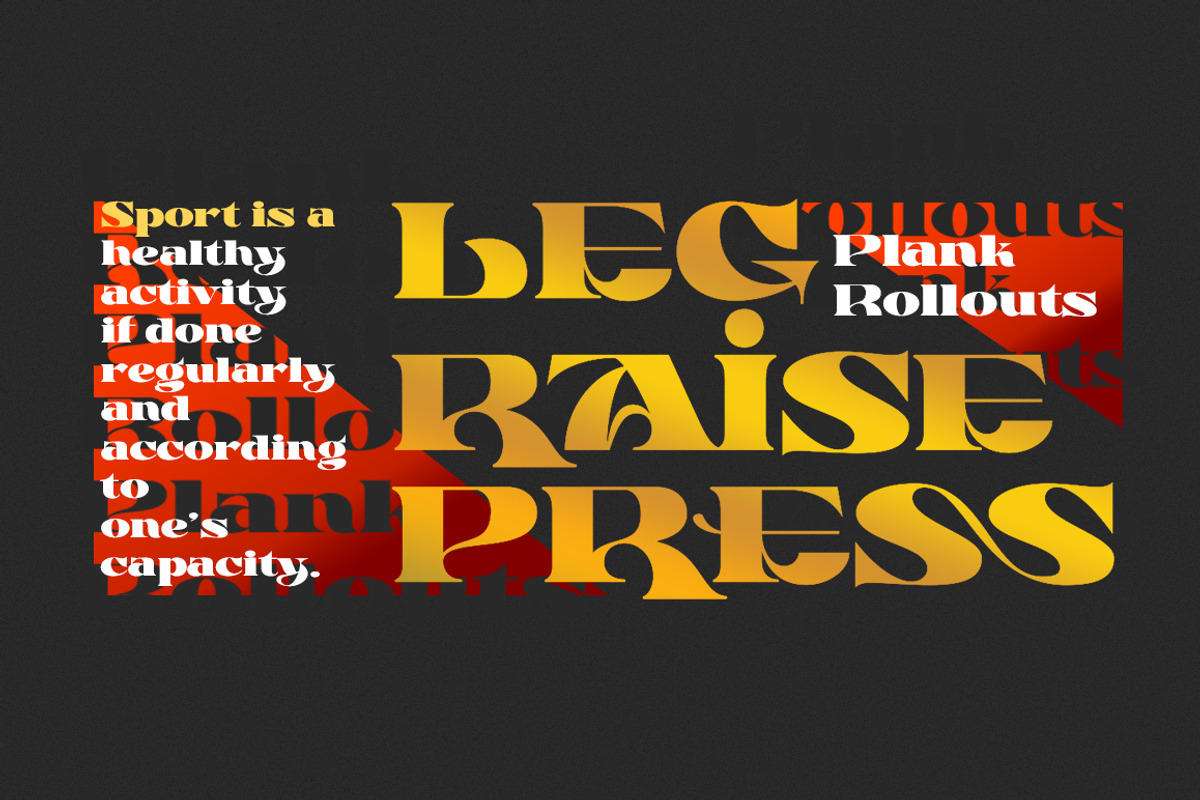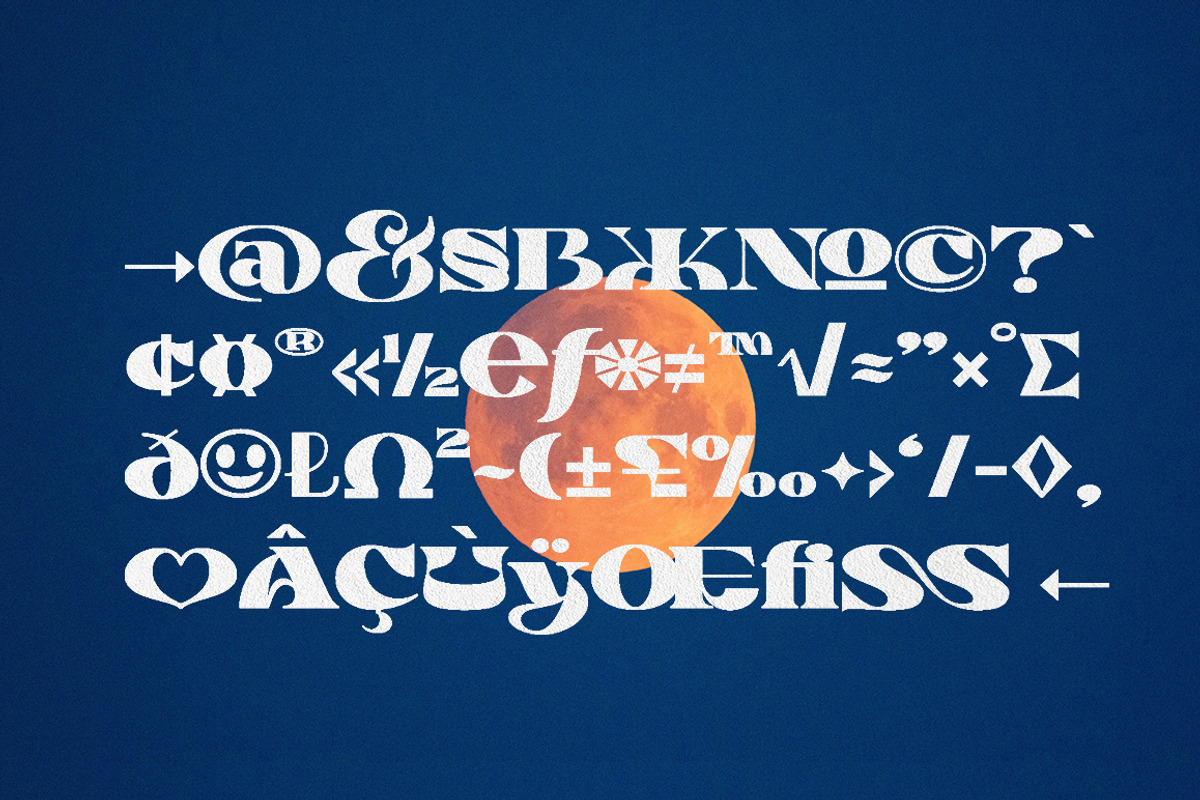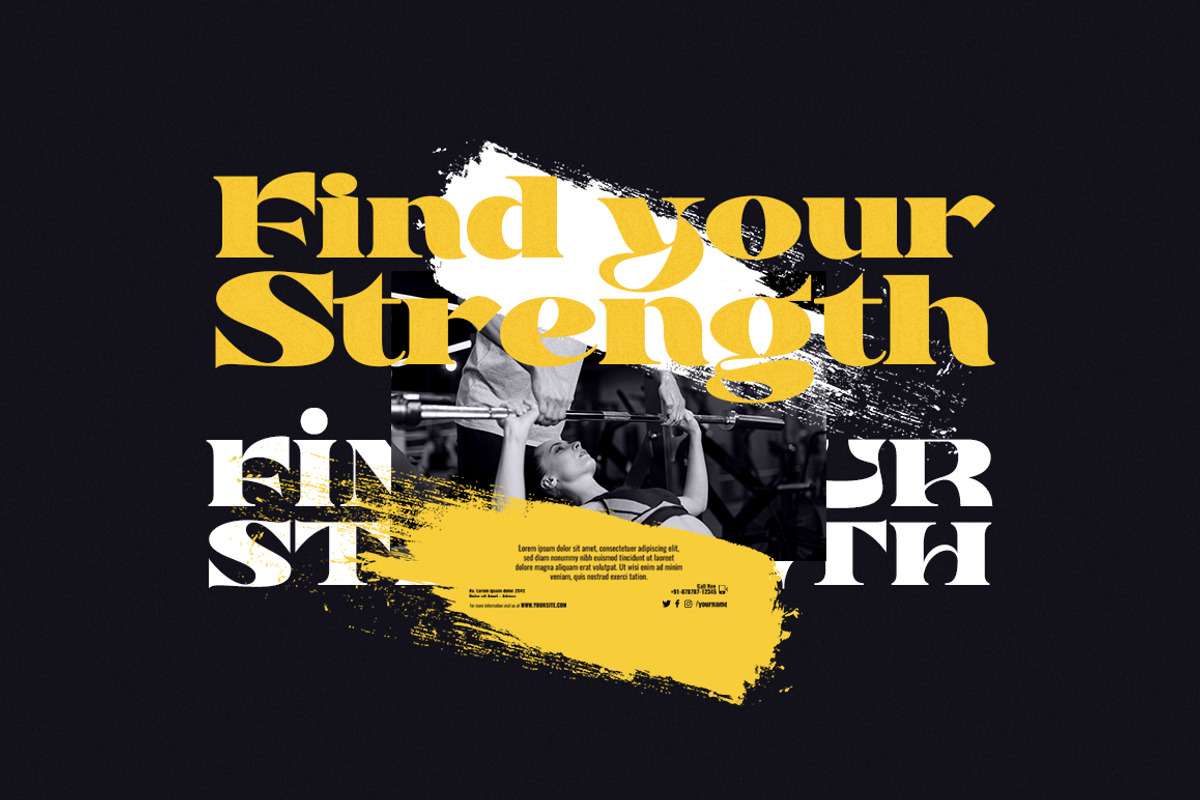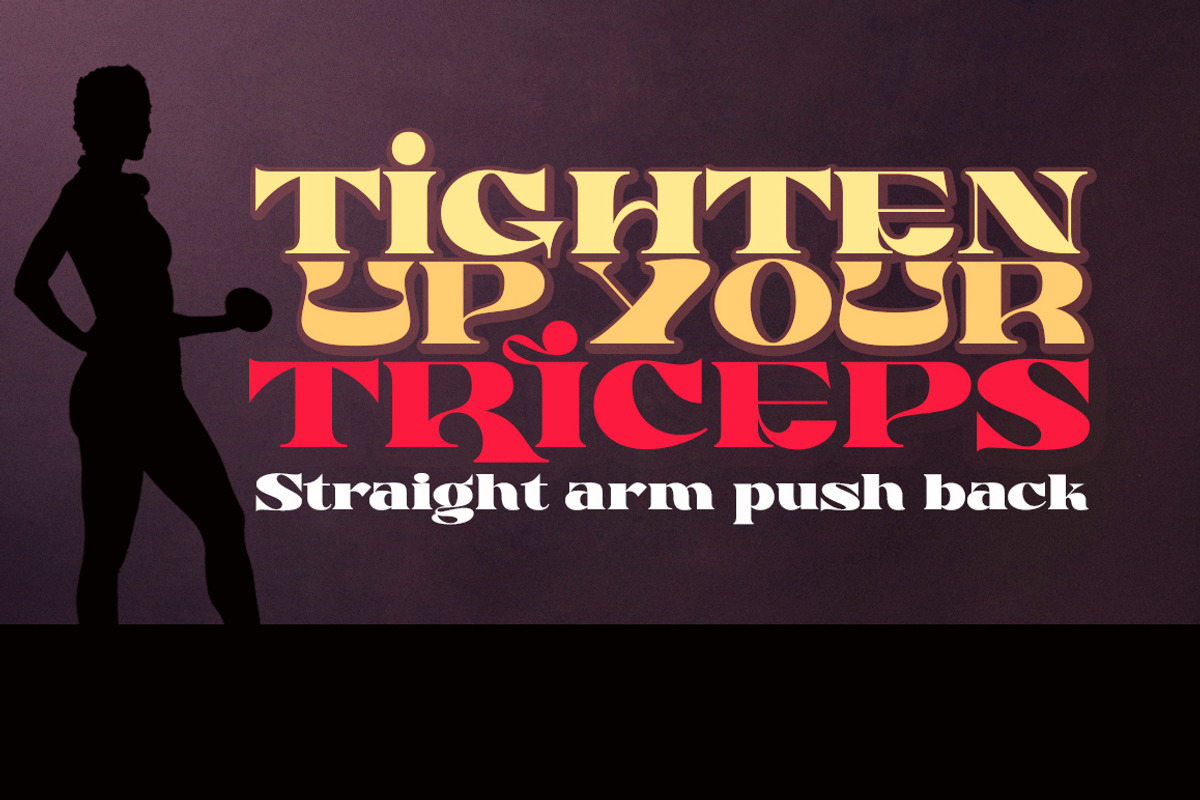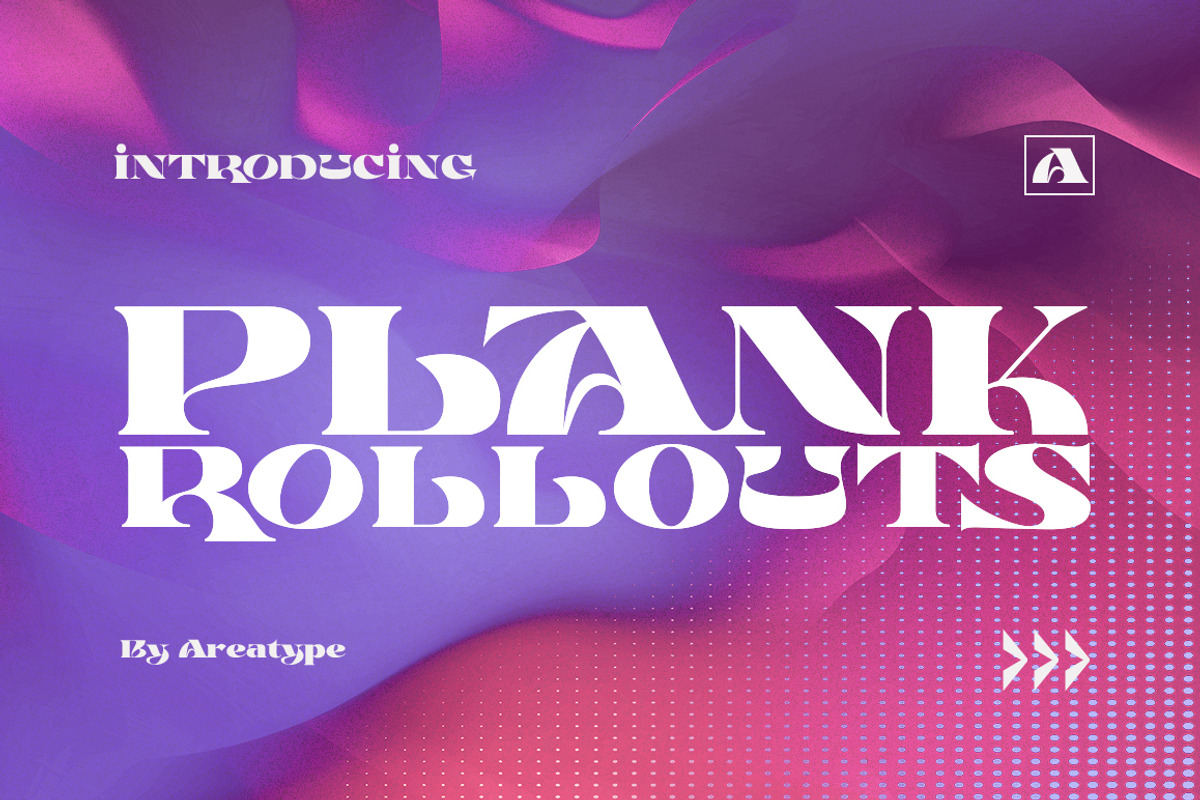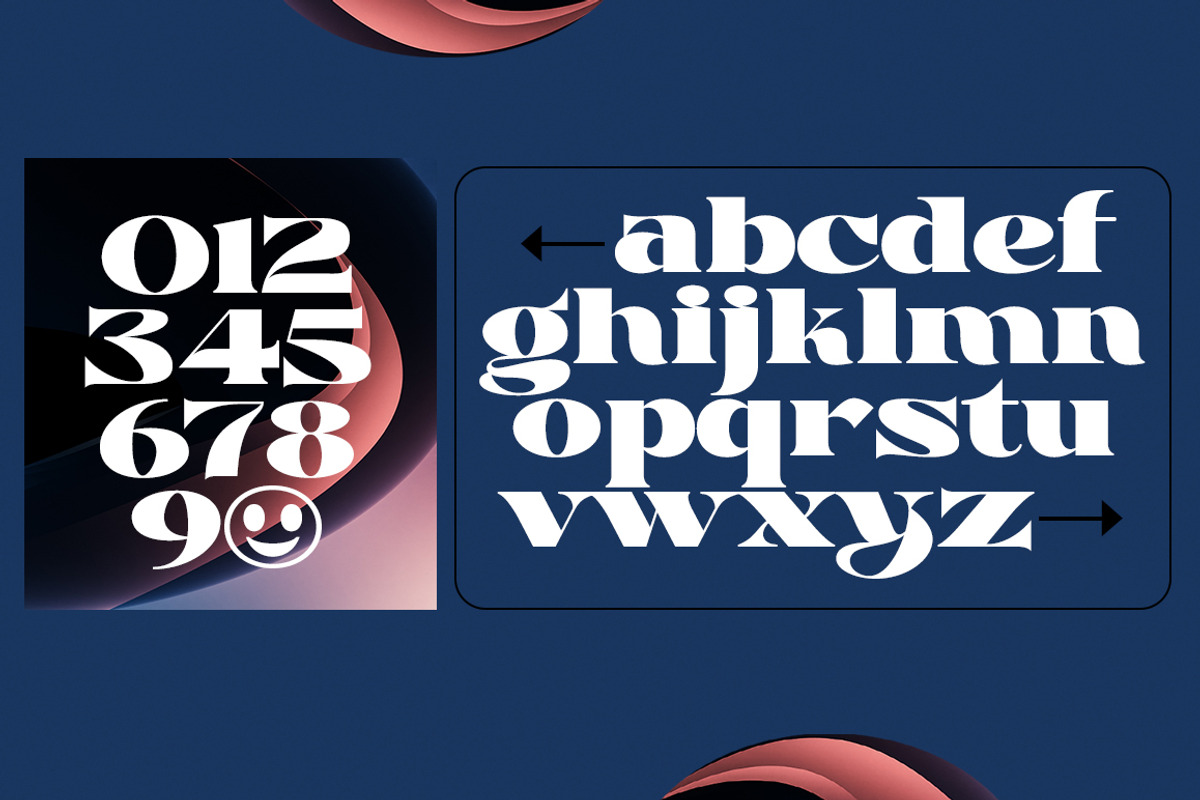
Plank Rollouts Display
Plank Rollouts display serif is a very versatile font, clean, and visual elegance. perfect for magazine images, to wedding invitations, to branding, poster design, and more.